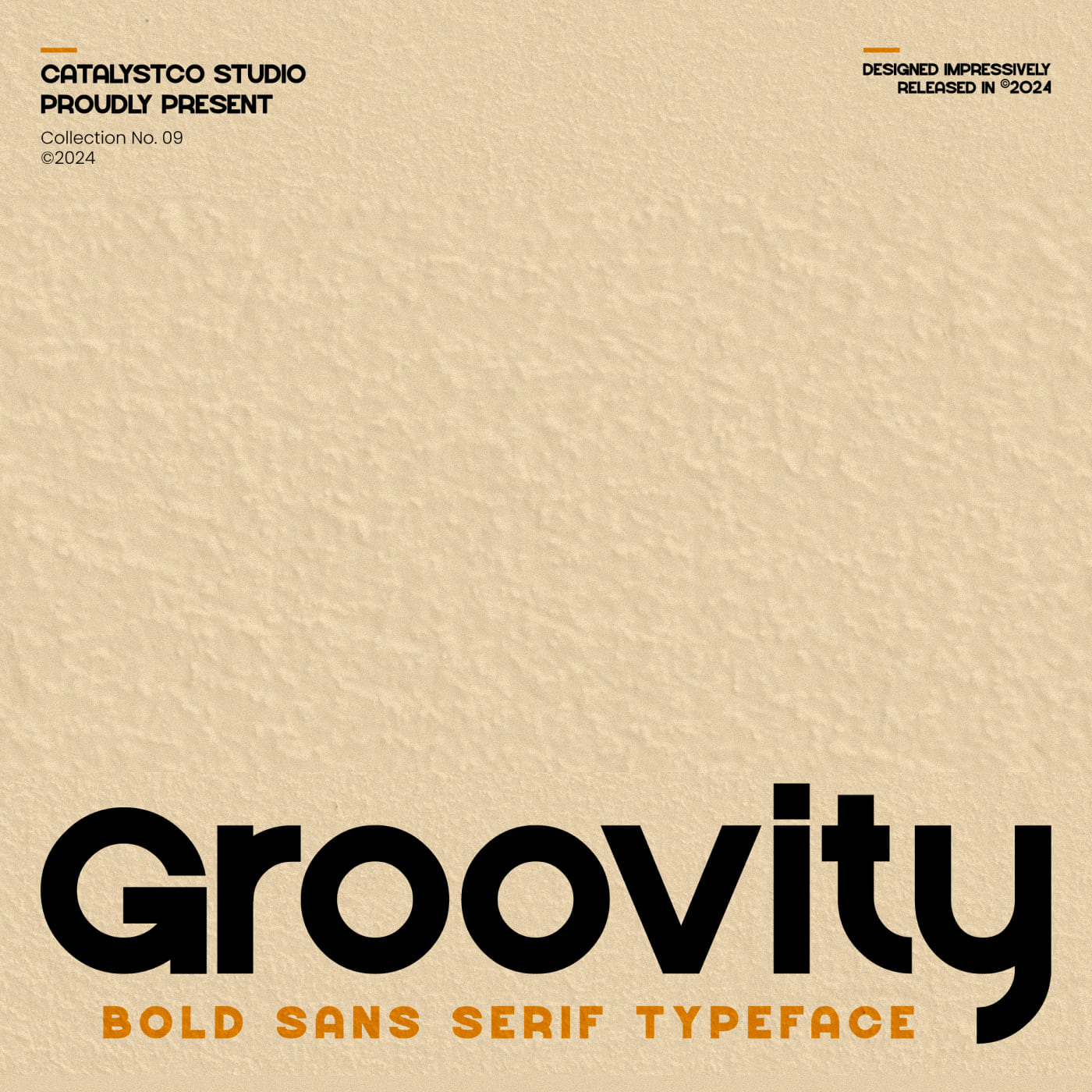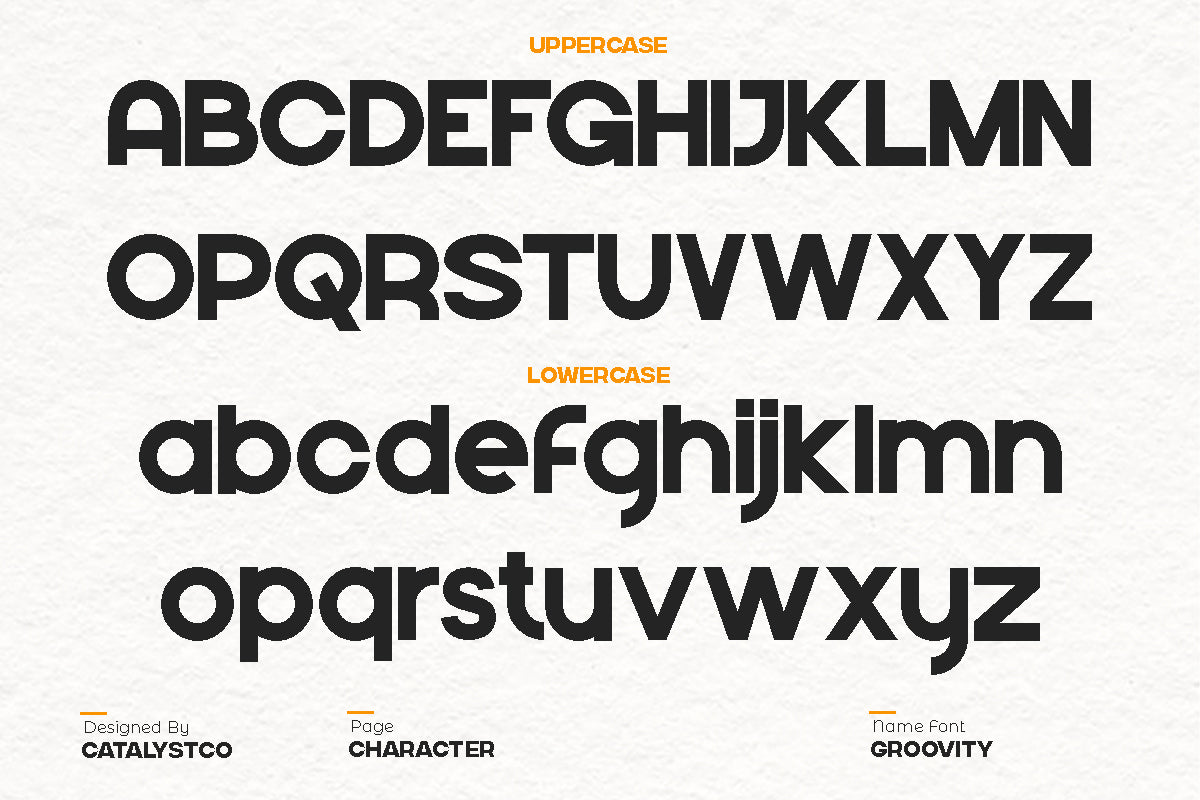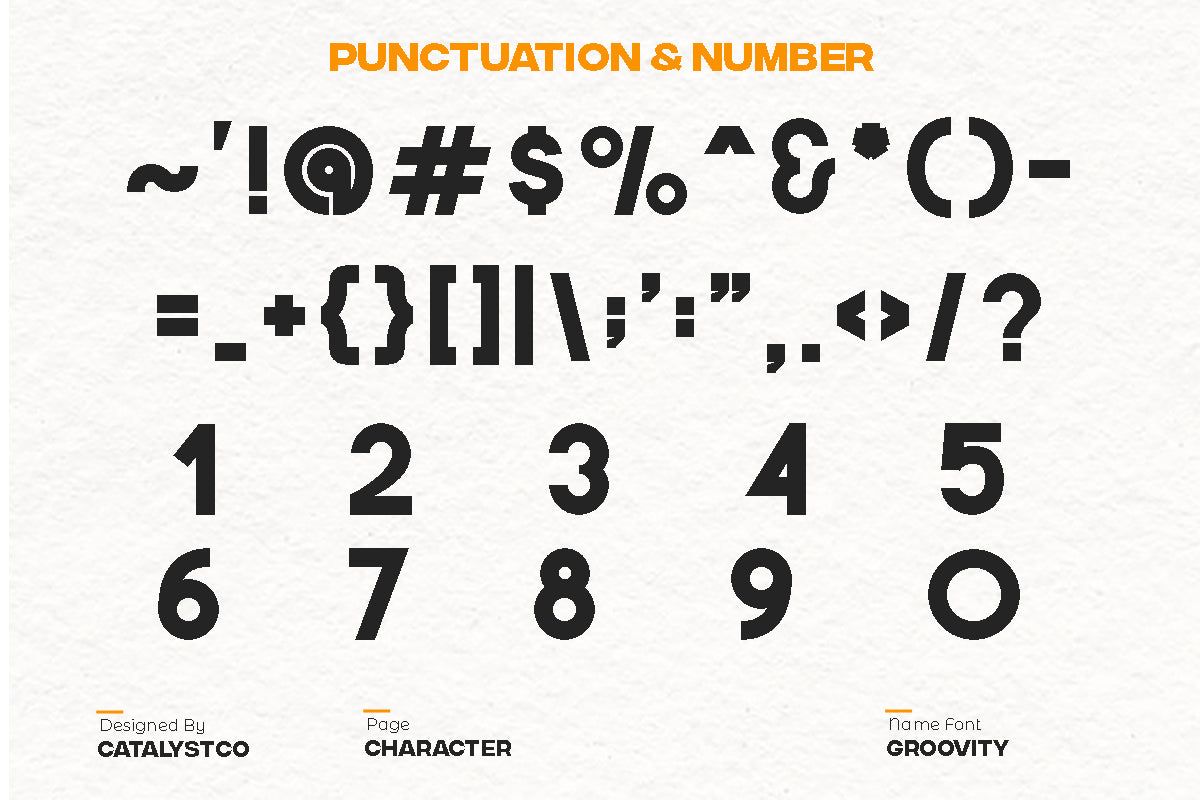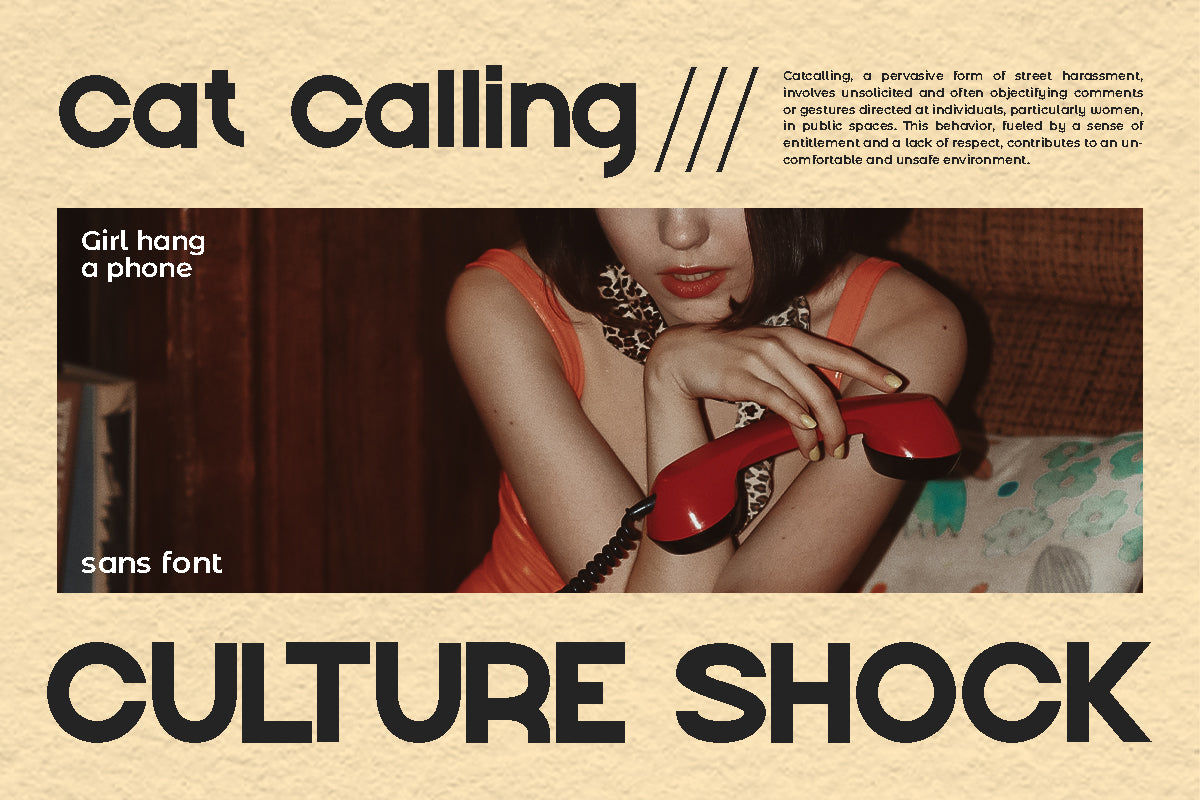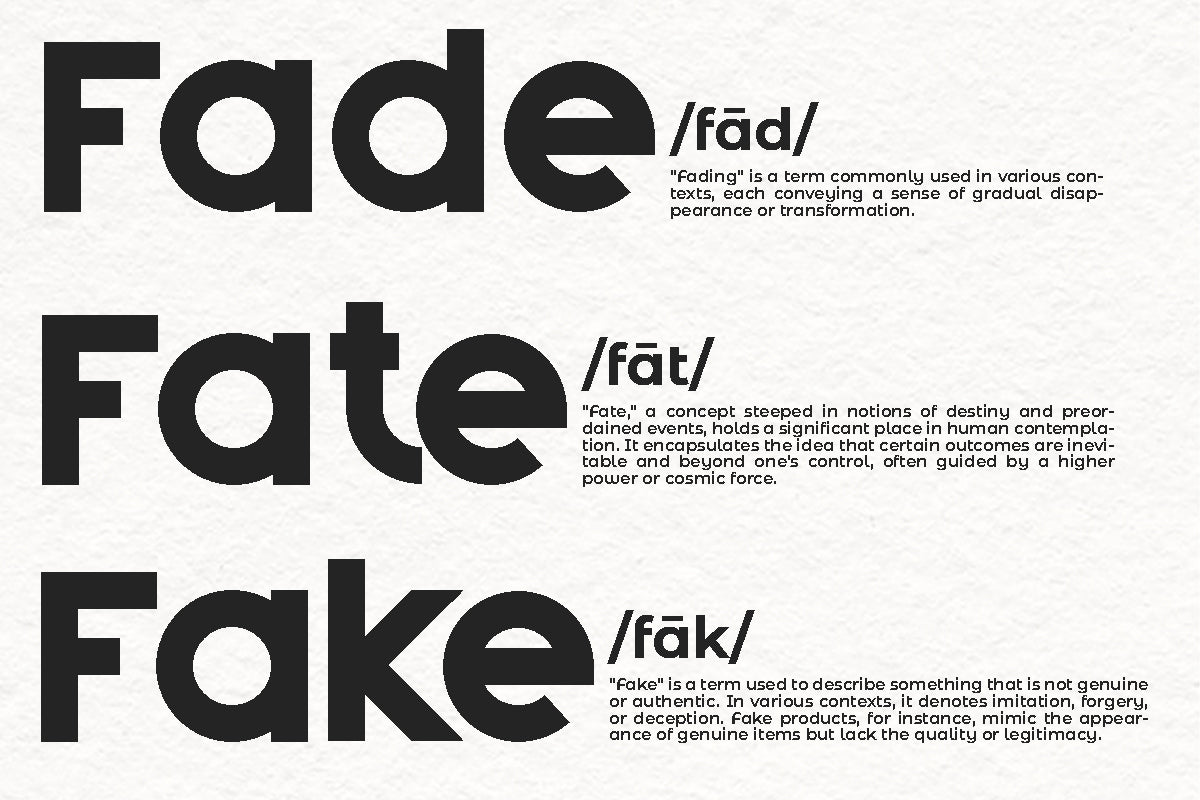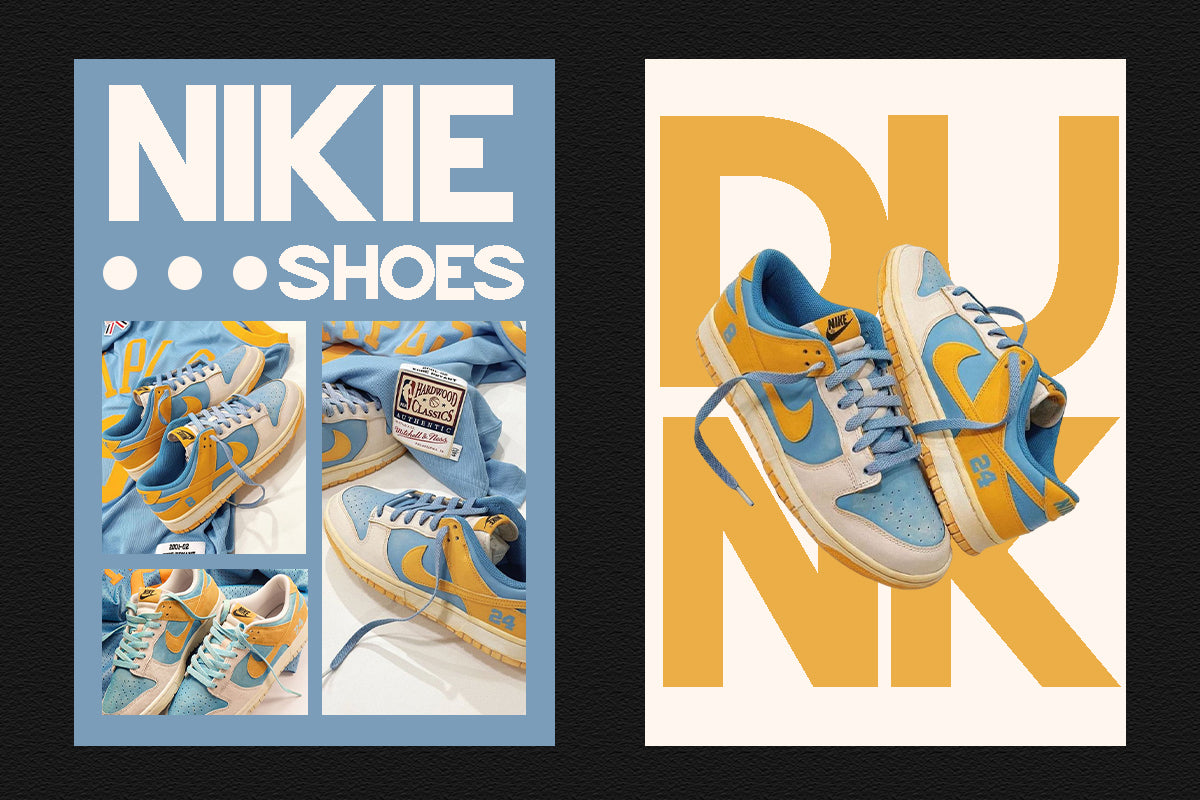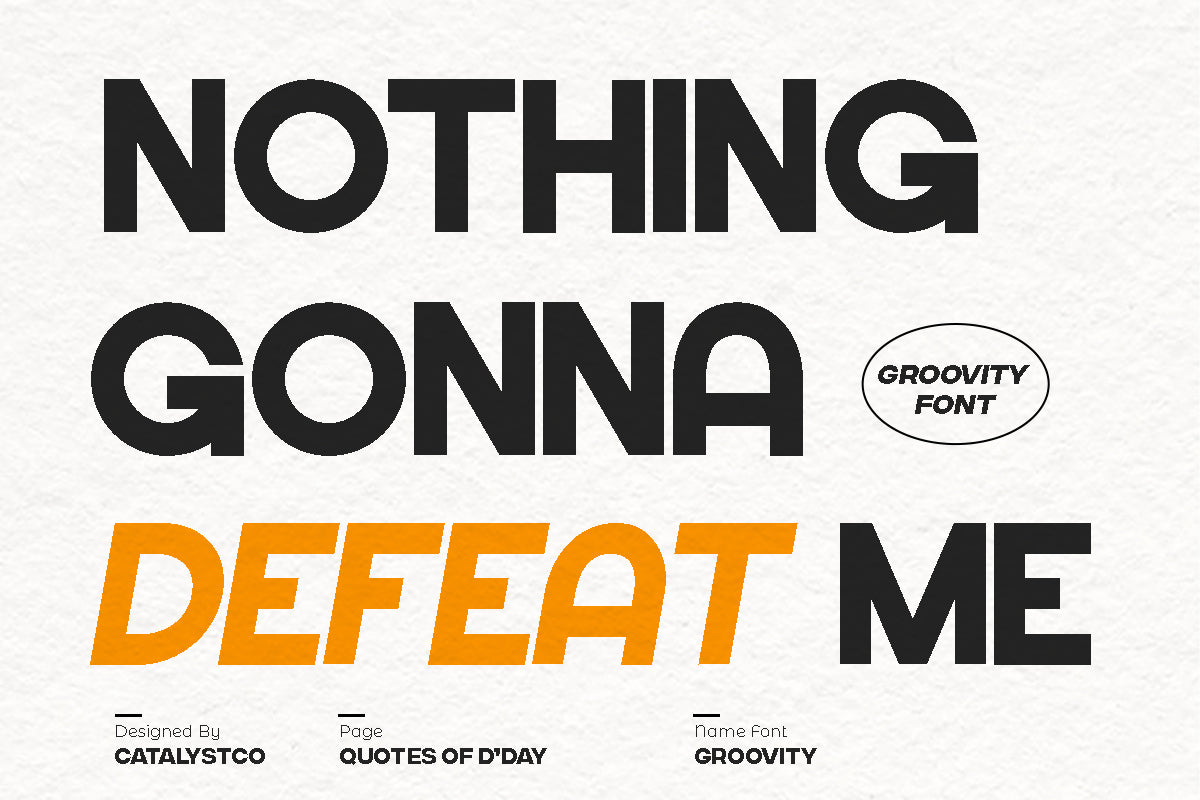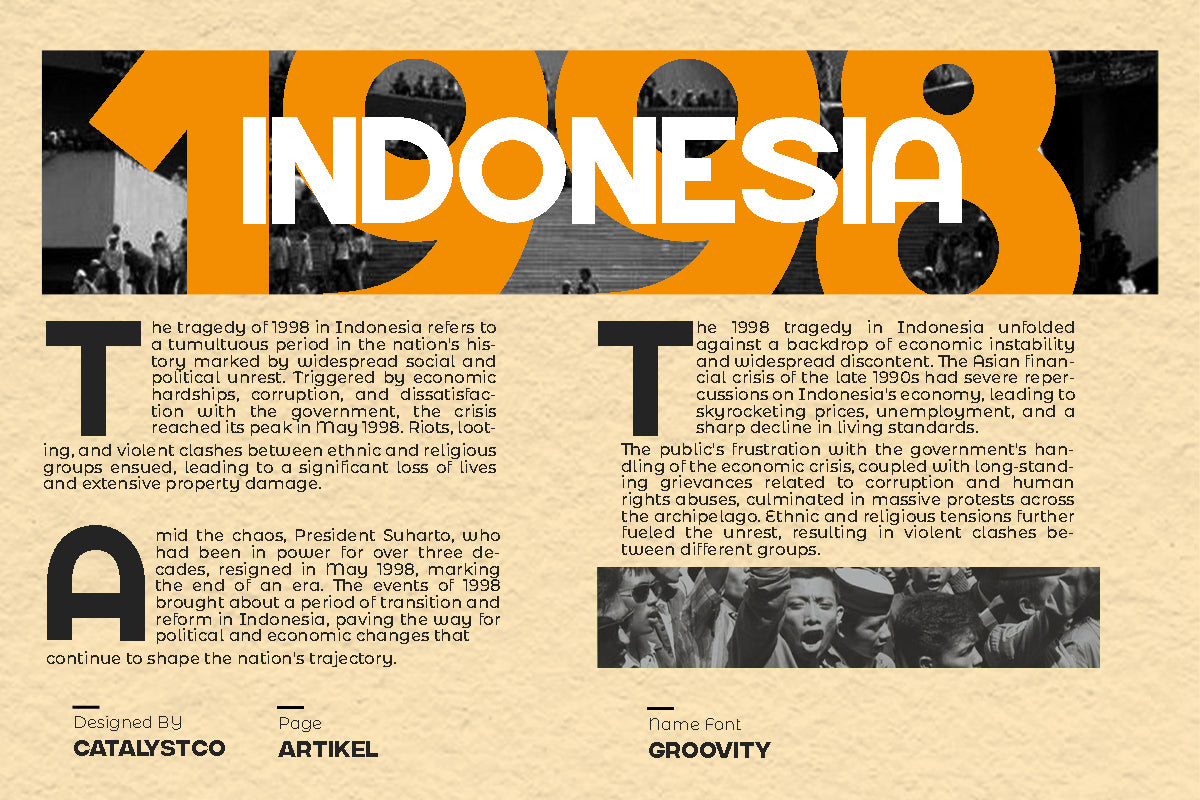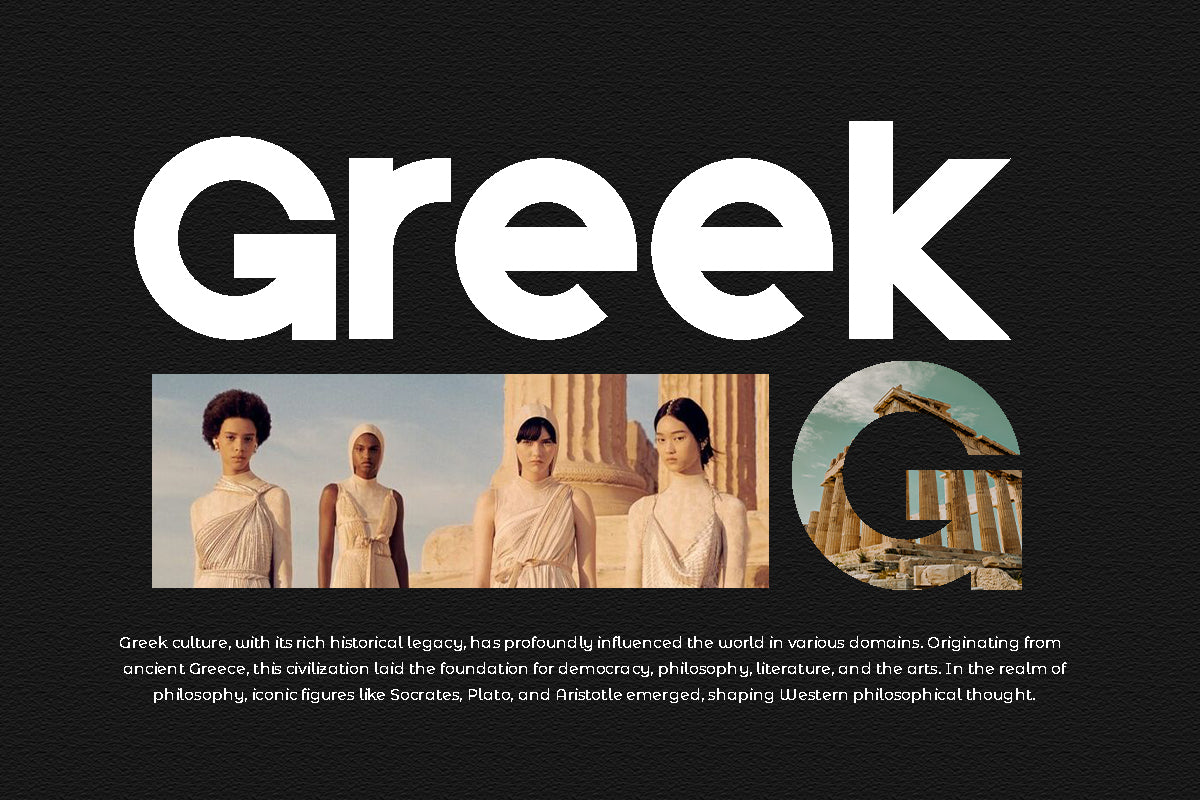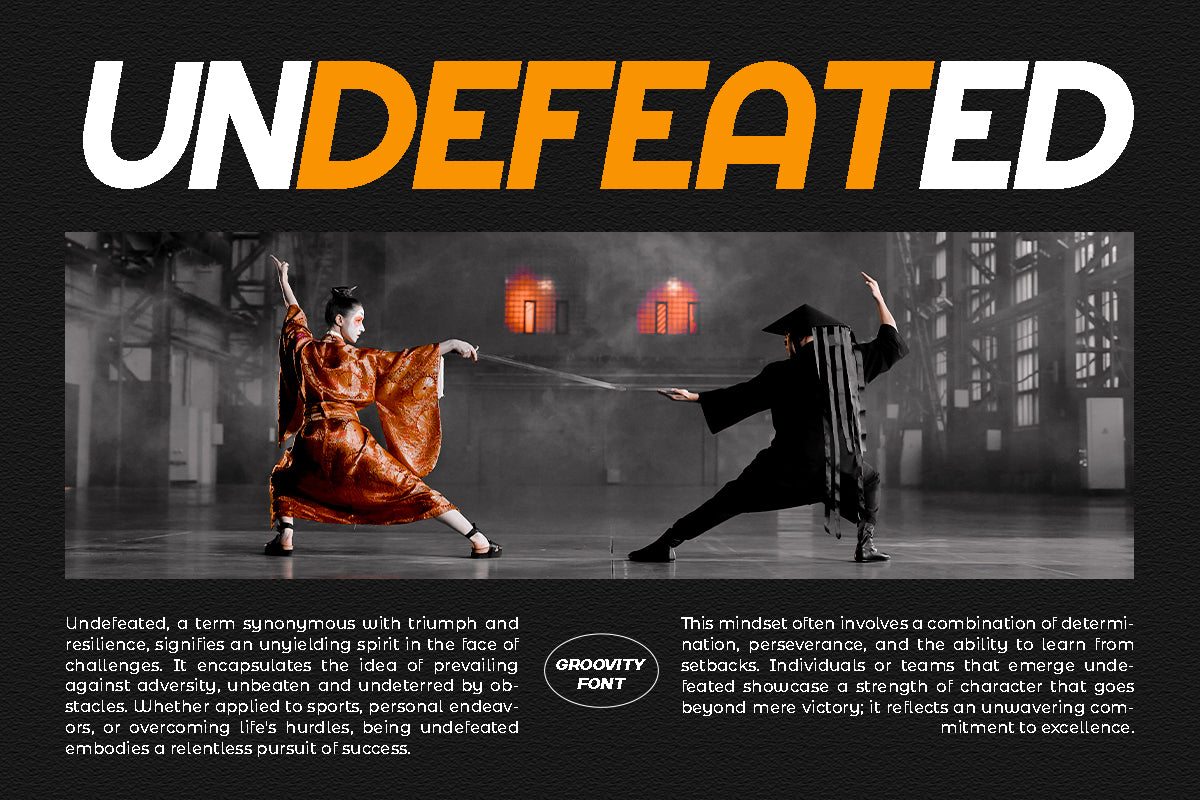
Groovity Bold Sans Serif Typeface Font
Groovity is a modern sans serif typeface with a geometric construction and smooth contemporary curves, designed to bring a clean yet distinctive visual presence to your creative projects. The balanced proportions, refined terminals, and bold character shapes create a classy and confident look suitable for branding, headlines, and editorial layouts. With both uppercase and lowercase forms crafted for versatility, Groovity offers a polished foundation for logos, packaging, posters, and digital interfaces. Its minimalist aesthetic and professional clarity make it a reliable premium font for designers seeking a modern luxury touch.
Groovity is perfect for modern branding, logo designs, fashion identities, packaging, editorial layouts, posters, social media graphics, minimalist design themes, professional business presentations, and projects requiring a classy geometric sans serif with a clean and contemporary aesthetic.
• Uppercase
• Lowercase